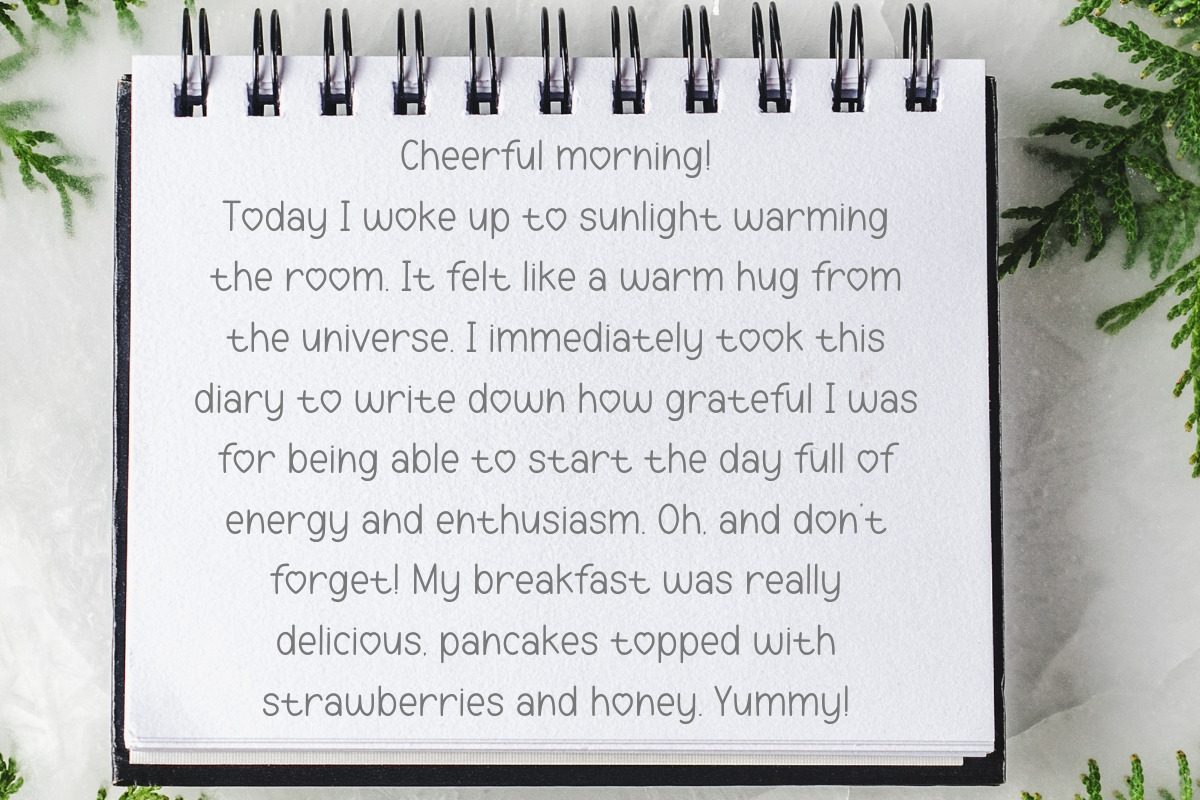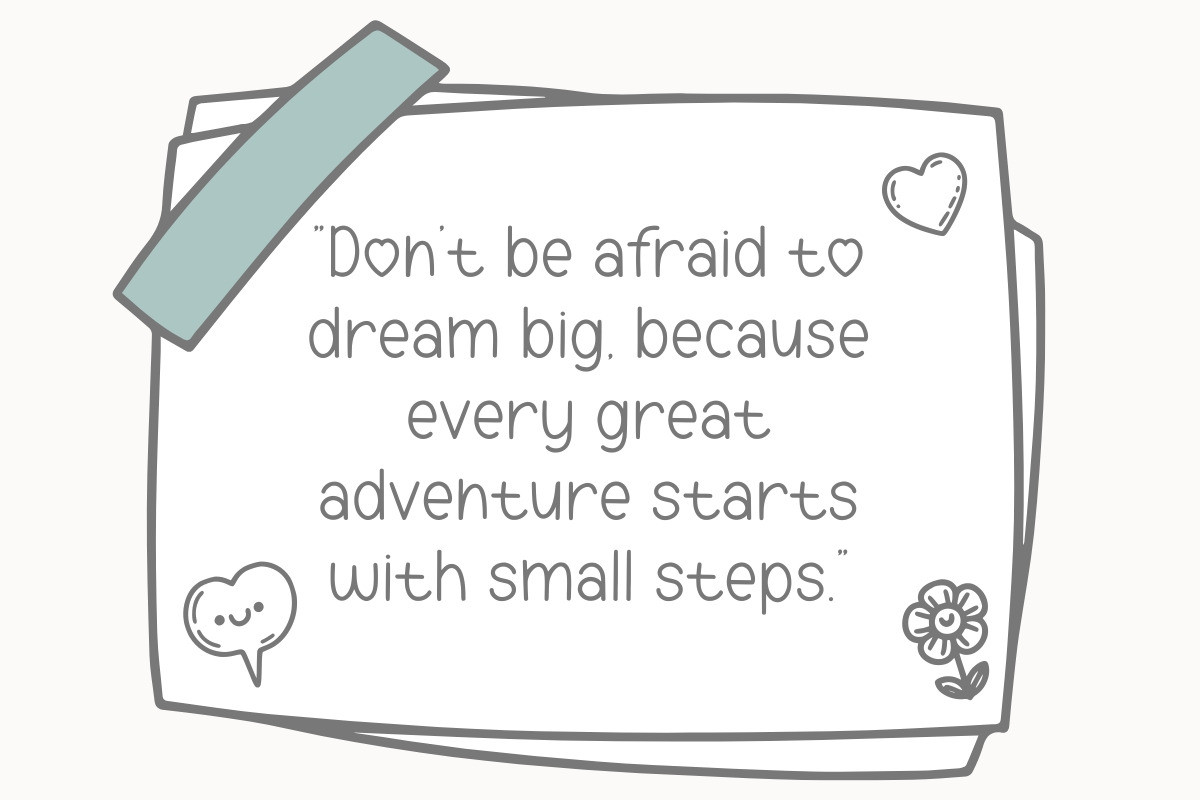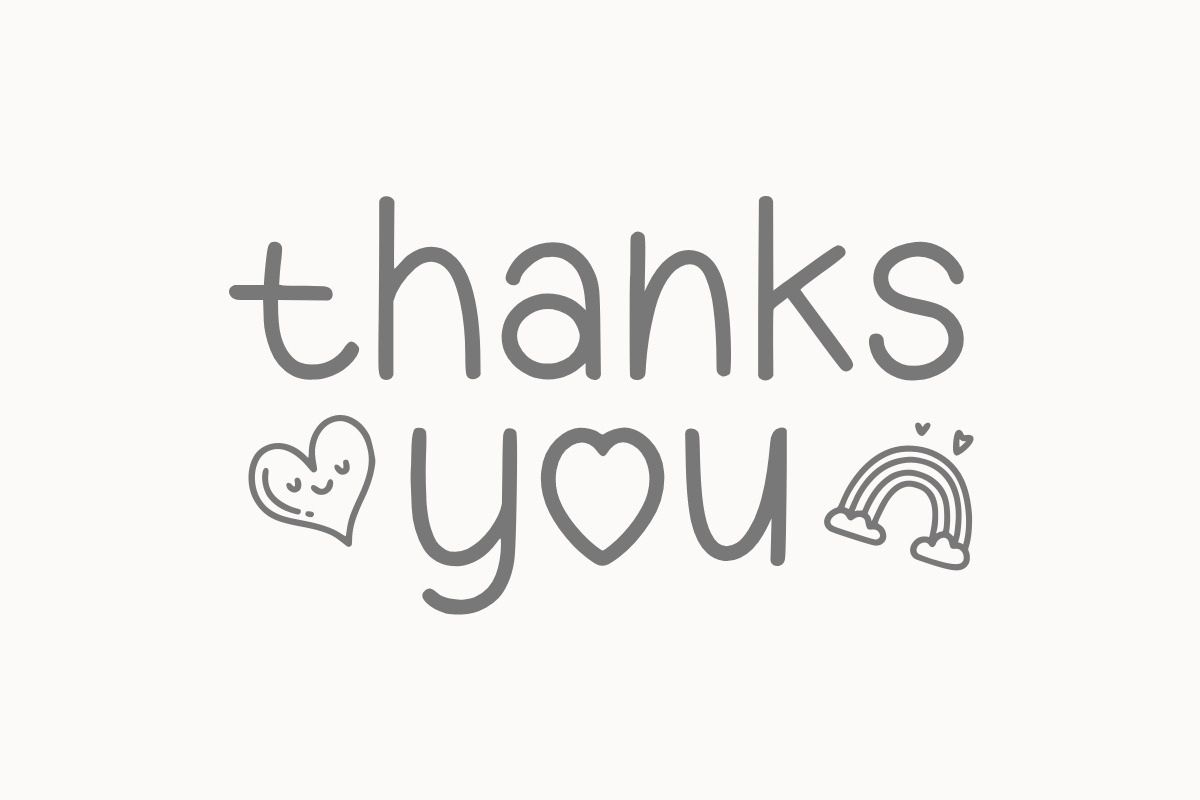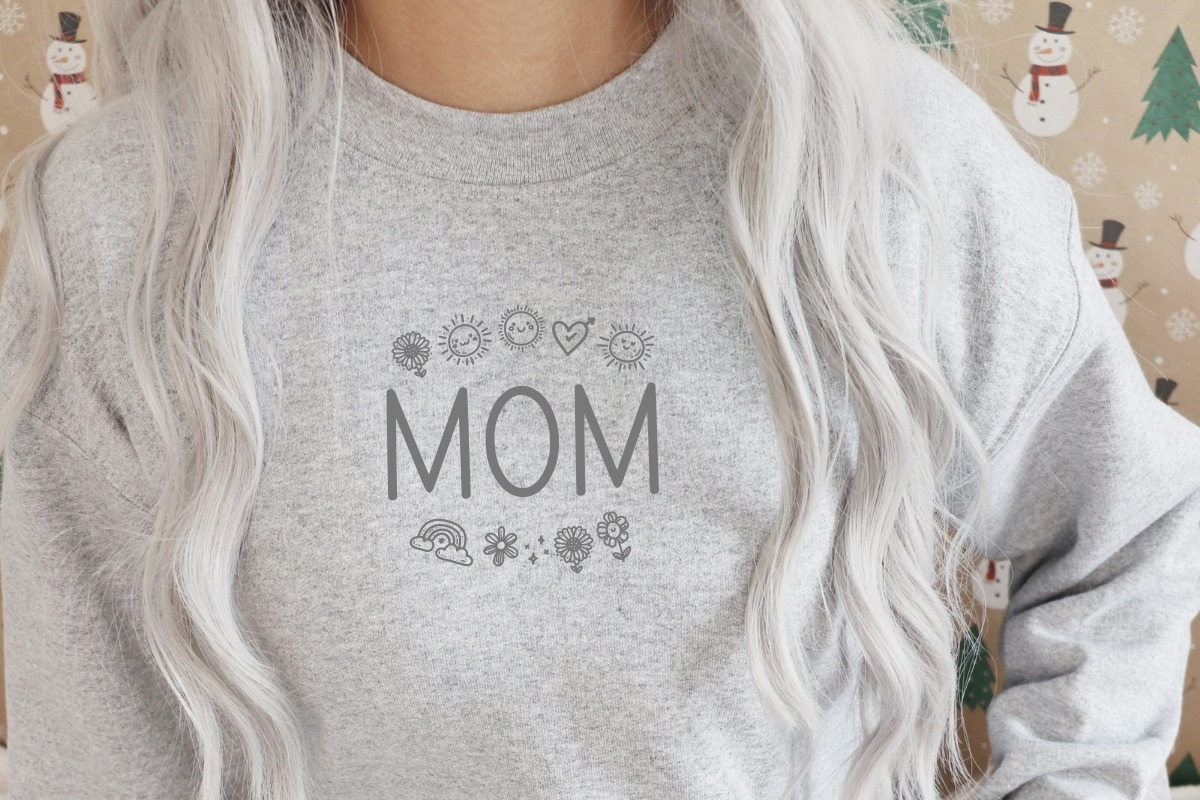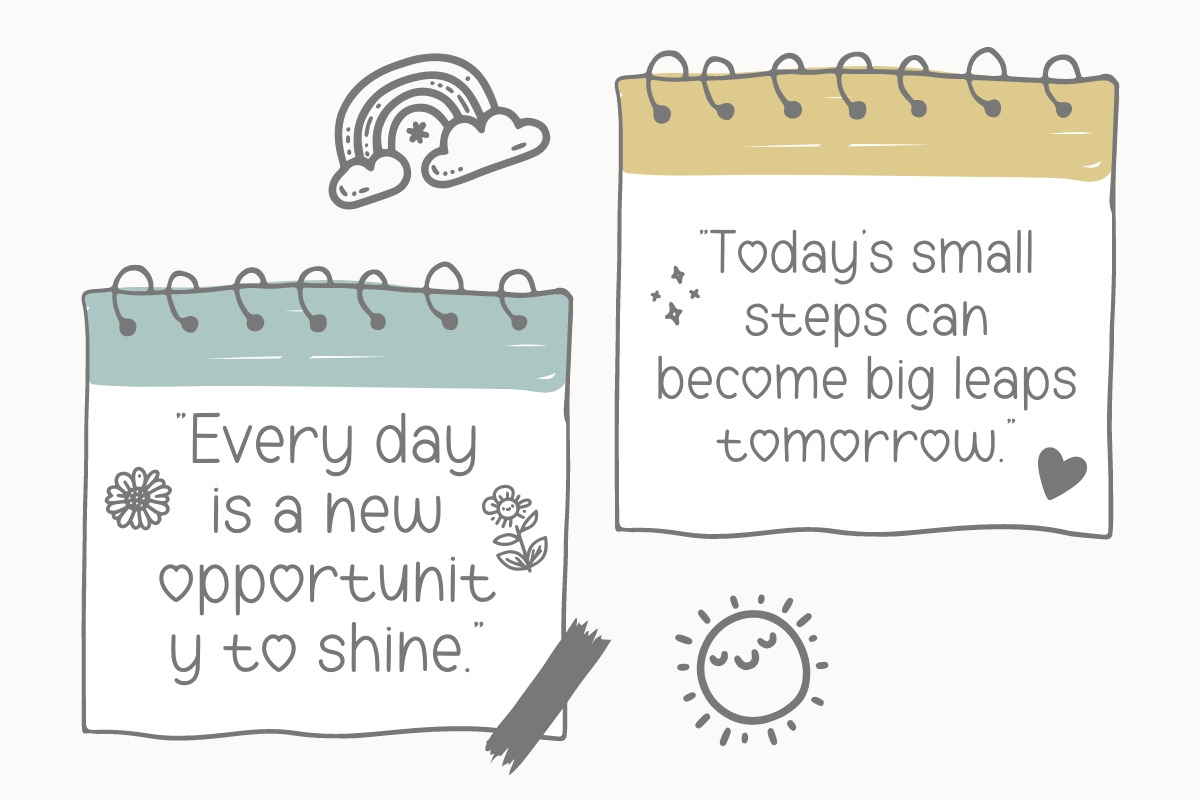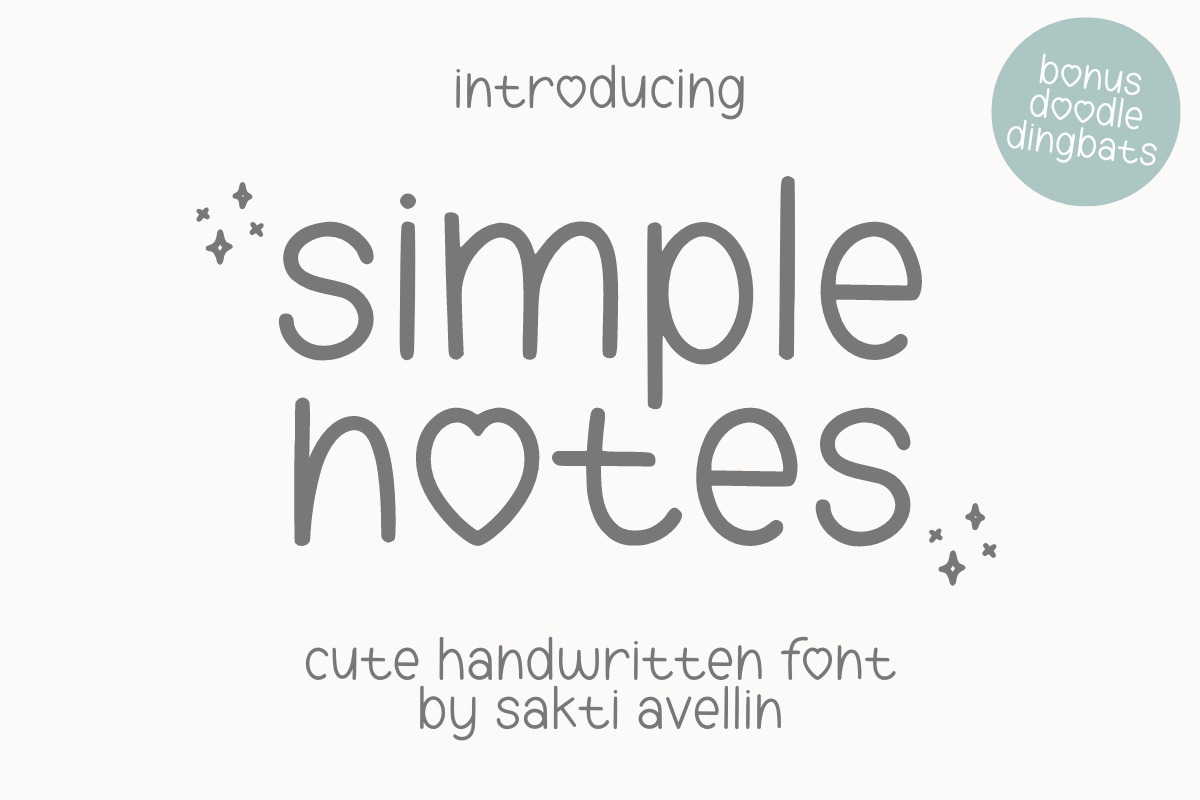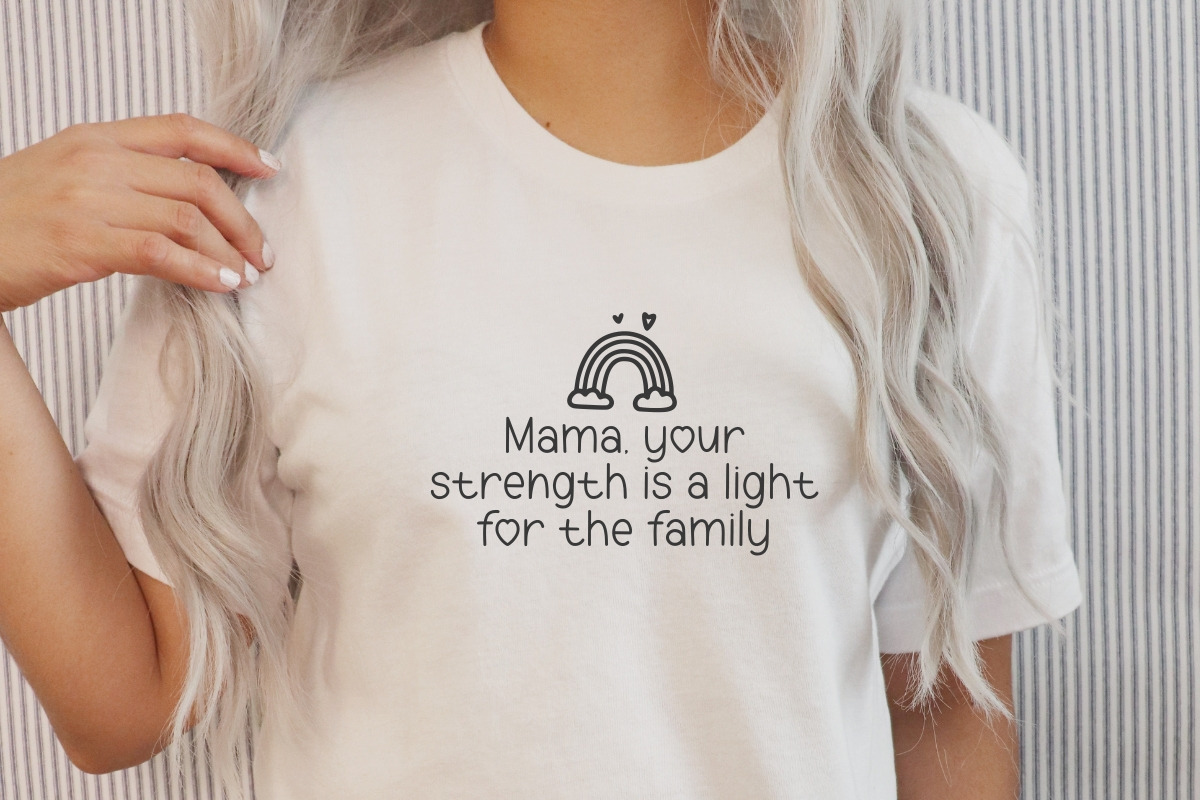
Simple Notes - Cute Handwritten Font
Simple Notes is a charming and versatile cute handwritten font designed to add a personal, clean touch to your creative projects. This simple monoline typeface features legible, hand-drawn letterforms with a sweet heart-shaped detail, making it an ideal choice for digital planners, journal entries, greeting cards, and social media quotes. Complete with bonus doodle dingbats, this font is perfect for crafters and designers looking for a minimalist yet whimsical aesthetic. Whether you are creating educational materials or personalized stickers, Simple Notes brings a friendly and warm feel to every word.